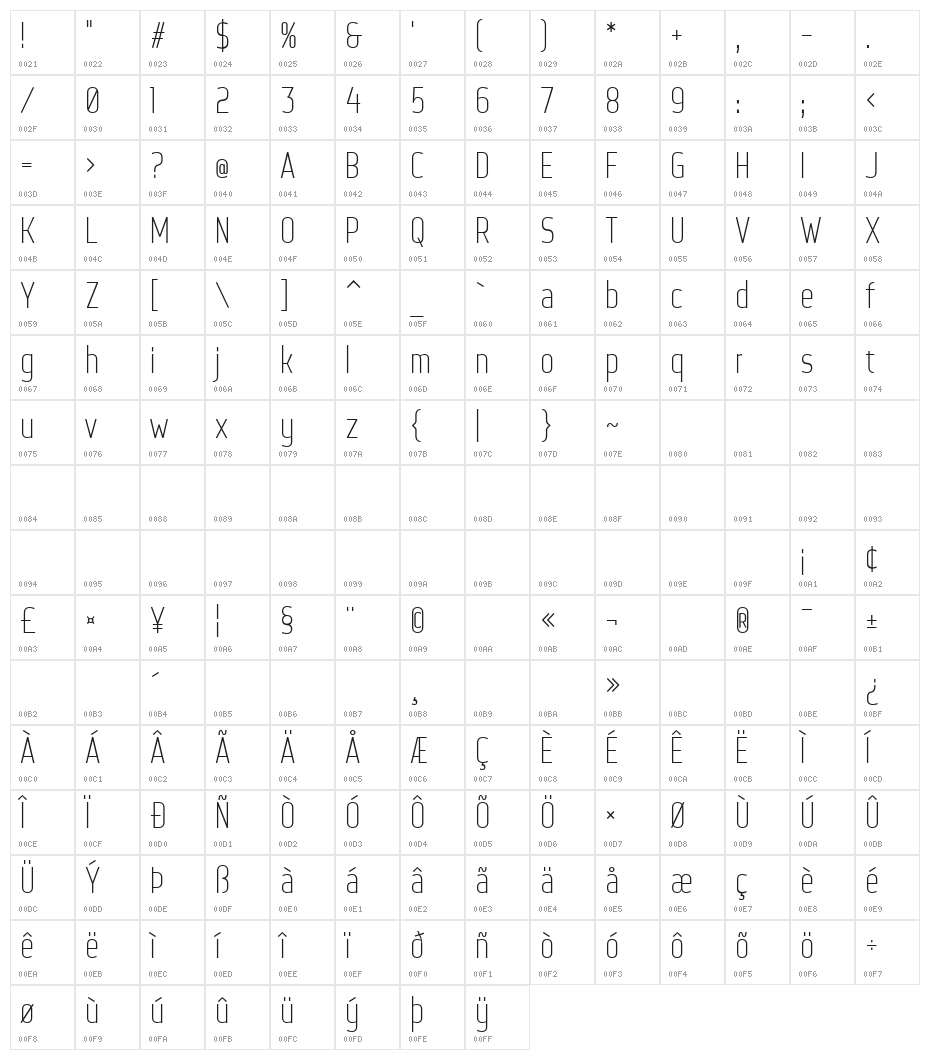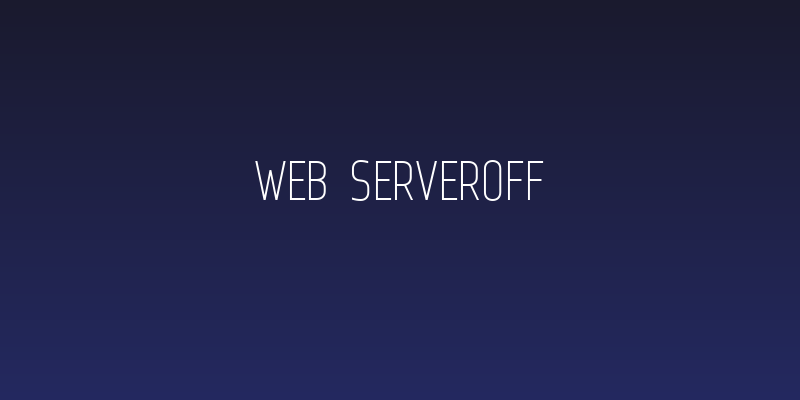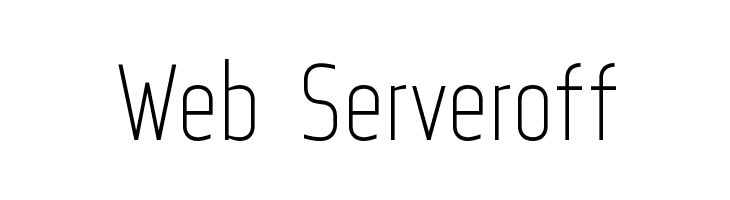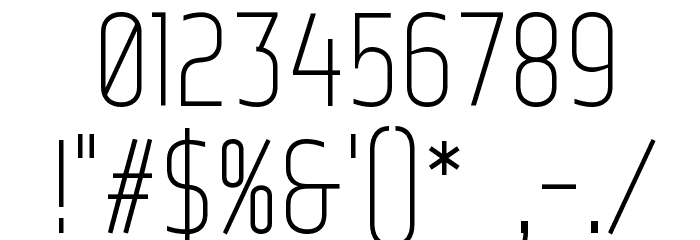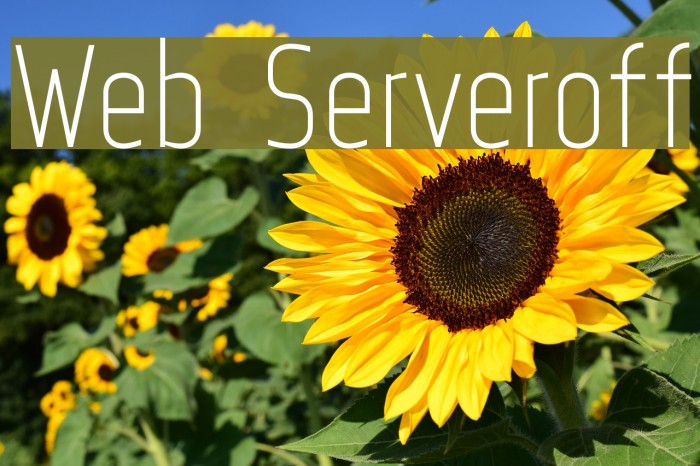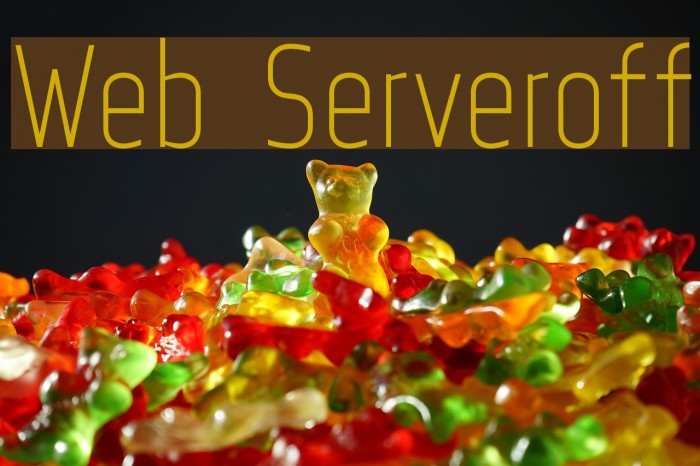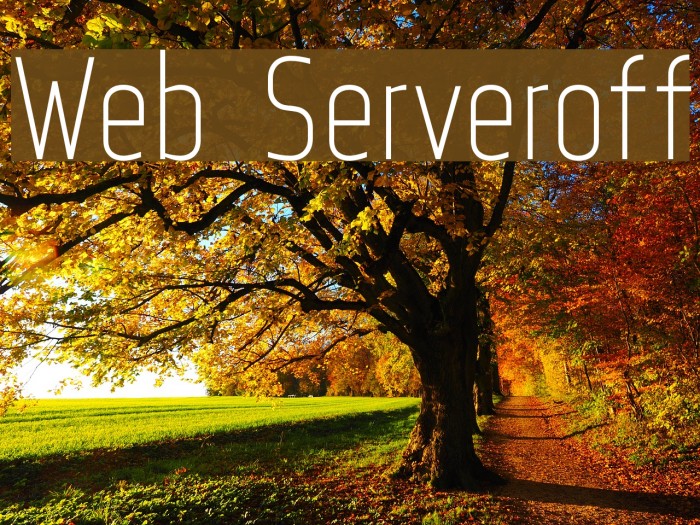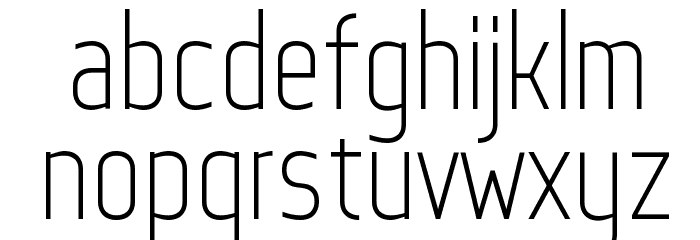
Web Serveroff Font
Web Serveroff Description
This font features a clean, geometric design with a modern aesthetic. The characters are constructed with straight lines and precise curves, giving it a sleek and contemporary look. The uppercase and lowercase letters maintain a consistent height, while the numerals are designed to align perfectly with the overall style. The special characters are crafted to match the font's minimalist approach, ensuring a cohesive appearance across all text. Its simplicity and clarity make it highly readable, suitable for a variety of design applications.
| Use Case | Headlines, Body text, Logos |
| Proposed Projects | Ideal for branding, web design, and editorial projects where a modern and clean look is desired. |